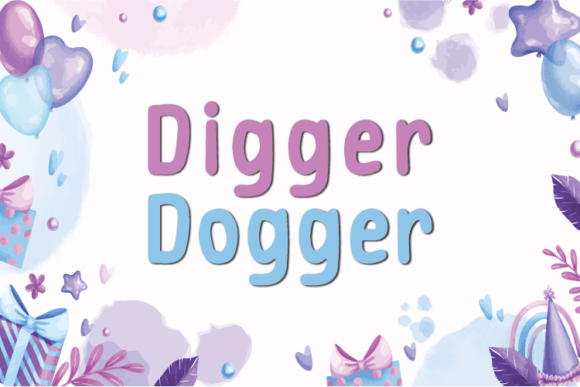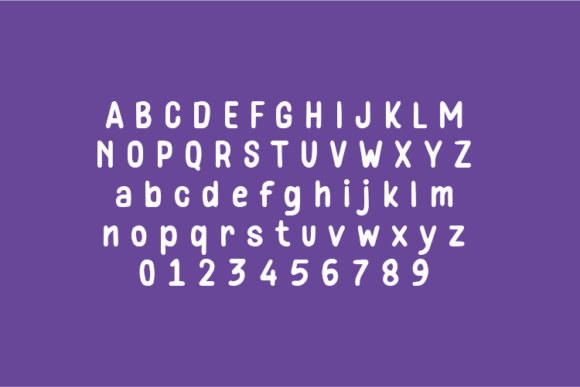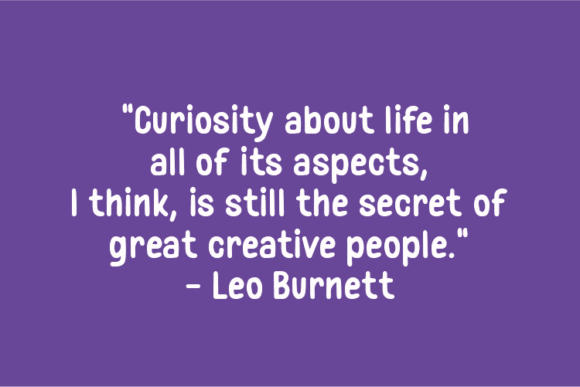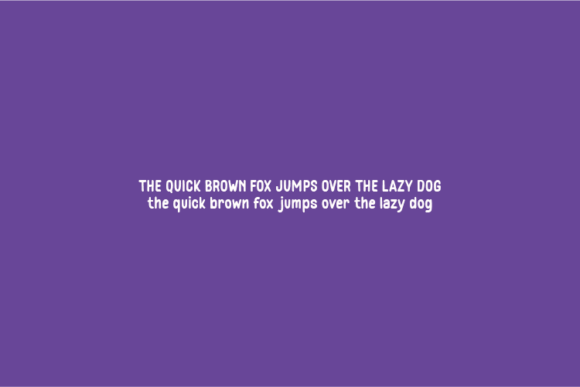
Digger Dogger Font
About Digger Dogger Font
“Digger Dogger” is a distinctive handwritten font that maintains a natural and unaltered design, preserving each character’s original indentation without modification. This unique quality adds an interesting and captivating element to the font, making it a perfect choice for a variety of design applications, including quotes, notes, T-shirts, and other product designs.
The font’s natural handwritten appearance imparts a sense of authenticity and warmth to your text, making it well-suited for conveying messages in a genuine and approachable manner. “Digger Dogger” stands out as a versatile option for projects where a touch of originality and individuality is desired.
The preservation of each character’s original indentation sets “Digger Dogger” apart, contributing to its intriguing and unique visual appeal. This feature makes the font an excellent choice for designs that seek to capture attention and make a lasting impression.
Incorporating “Digger Dogger” into quotes, notes, and T-shirt designs allows you to infuse your projects with a distinct and personalized touch. The font’s adaptability ensures that it seamlessly integrates into various design contexts, providing a fresh and interesting option for creative expression.
Whether utilized in print or digital media, “Digger Dogger” adds an authentic and captivating touch to your text. Its unique design makes it a valuable asset for a range of design projects, offering a visually engaging option that stands out.
“Digger Dogger” is not just a font; it’s a design asset that combines natural handwriting with a unique visual element. Let it be the choice that sets your quotes, notes, and product designs apart, making them memorable and authentically individual. Whether you’re designing for personal expression or product branding, “Digger Dogger” is the font that brings a touch of originality to every project.